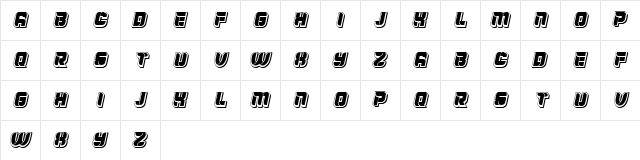
Indos Italic
Design Context for Indos Typeface
Indos is a composed and adaptable typeface that performs quietly and consistently across a wide range of design contexts. The dynamic lean of this cut emphasises speed and emphasis in any layout.
Pro Tip: Try Indos for annotation and caption copy alongside an upright companion — the contrast in angle creates a dynamic but ordered typographic system.